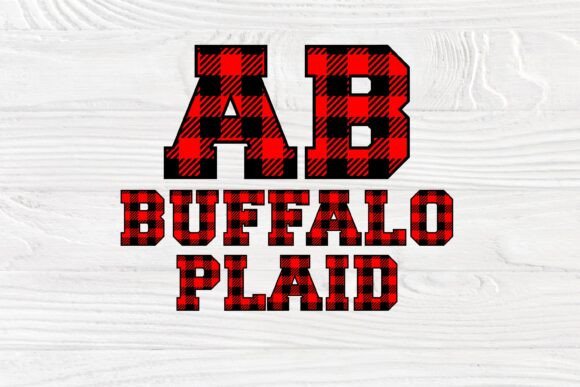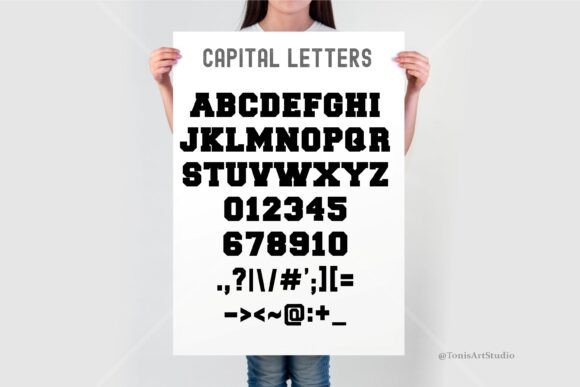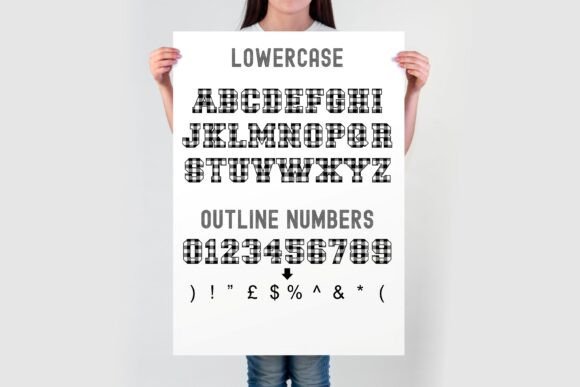
The Magic of Buffalo Plaid Font: Elevate Your Holiday Designs
Ah, the holiday season is upon us, and you know what that means – a flurry of design projects, from personalized Christmas cards to festive apparel and winter-themed home decor. As a designer, I’m always on the lookout for that perfect font to capture the essence of the season. Recently, I stumbled upon the Buffalo Plaid Font, and I just can’t get enough of it! ✨
I recall working on a project last year, tasked with creating a custom holiday card for a client. I spent hours scrolling through font after font, but nothing seemed quite right. That was until I discovered the Buffalo Plaid Font. Its unique blend of bold, checkered uppercase letters and lined lowercase letters instantly transported me to a cozy winter wonderland. It was love at first sight! ❤️
- ✨ The bold, checkered pattern of the uppercase letters adds a fantastic rustic touch to any design.
- ✅ The lined lowercase letters provide a beautiful contrast to the uppercase, creating a visually appealing combination.
- 🎉 The font’s unique personality makes it perfect for creating that classic holiday feel.
While the Buffalo Plaid Font is incredibly versatile, there are a few things to keep in mind 🤔:
- ⚠️ The font’s bold pattern can be overwhelming if not used thoughtfully. Make sure to balance it with simpler elements.
- ⚠️ Some of the glyphs and special characters might require a bit of tweaking to get just right.
The Story Behind the Font: Designer Inspiration
The Buffalo Plaid Font was inspired by the classic plaid patterns of traditional lumberjack shirts and warm, cozy cabins. The designer aimed to capture the essence of the great outdoors and bring it to life in a unique, typographic way. The result is a font that’s equal parts rustic and charming – perfect for adding a touch of warmth to your holiday designs.
Q: Is the Buffalo Plaid Font suitable for body text?
A: While the Buffalo Plaid Font is incredibly charming, it’s best suited for headlines, titles, and short paragraphs. For longer body text, you might want to choose a more traditional font for readability.